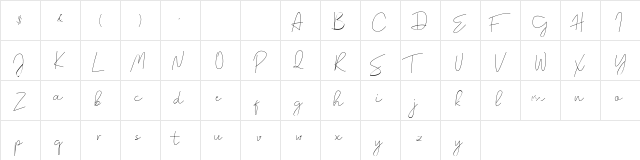
Romances Script Font Regular
Design Context for Romances Script Font Typeface
Romances Script Font flows with the natural rhythm of handwritten lettering, making it ideal for designs that call for warmth and personal expression.
Font Pairing: Combine Romances Script Font with a simple geometric sans for maximum contrast — the tension between flowing curves and clean structure is a classic typographic pairing.
Pro Tip: Pair Romances Script Font with a clean sans-serif for supporting text. The contrast between fluid script and geometric structure creates an elegant typographic hierarchy.